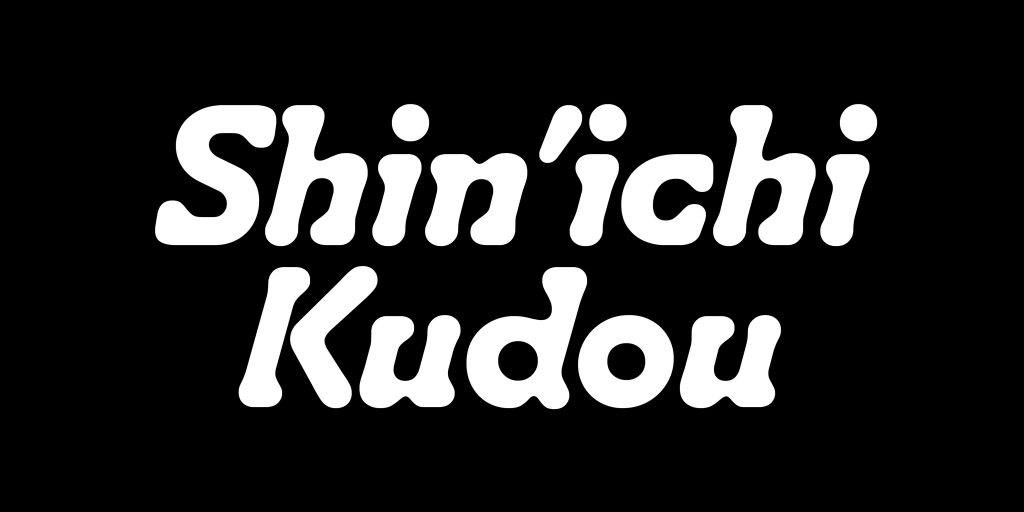
Name: Cosplay
Designer: Philipp Herrmann
Back Story: Philipp Herrmann studied at the University of Applied Arts in Zurich from 2002–2007—“but I only came in contact with type design during a three-month internship at Dalton Maag in London,” he says. Thereafter, Herrmann took the self-taught route, and he completed his first typeface, the slab serif Piek, in 2007 for Optimo. His first self-released effort, Crack—“based on a painfully restricted design concept,” which taught him a fair amount about shape, structure, and the nuances of a rigid circular grid—arrived in 2011, and was notably followed by Quick Marker and Copy. Then, in early 2021, he began work on Cosplay, a typeface that, despite Herrmann’s 15 years in the trade, came with all-new challenges of its own—largely due to the fact that it was “one of the few designs which evolved purely in my head,” emerging as a loose idea with original shapes not related to any historical forms.
According to Herrmann, the focus on form without context was akin to designing in a vacuum. “I realized that solely organic shapes would be too one-dimensional, too illustrated. I needed something that would generate some tension.” He wanted a design in which “organic and gridded, fluid and systematic” worked harmoniously. So he looked beyond the type world, and found inspiration in Hans Arp’s art, as well as camouflage and its “fluid organic language of form.” Arp’s ability to intertwine positive and negative space proved that abstract and figurative could indeed coexist. Thus, in Cosplay’s specimen, Herrmann pays tribute to Arp on page two, with Collage Sur Papier (1957)—two separate forms, the first a large positive shape and the second embodying a form and counterform, light on the outside, with a darker center. Stare at the daubs long enough, and you begin to see letterforms, the second one feeling like an ‘o.’ It was the tension Herrmann needed.
“I was trying to create very loose letter shapes inspired by Arp’s paintings,” he says. “Later, the shapes became more systematic, but I tried to preserve the fluidity within the drawing.” He adopted a grid-based approach to analyze positive and negative shapes, see relationships, and create visual ambiguity. The end result: order with flow.
Why’s it called Cosplay? “I like the broad associations evoked by the word,” says Herrmann. Costumed play, aka cosplay—the art of transforming your appearance into a character or characters—does not literally come across in the typeface, but it’s at the heart of its conceptual underpinnings. Formally, Cosplay is all about drama and transitions when you consider its grid-based, Arp-like organic shapes, and diffused strokes (more on that below).
What are its distinguishing characteristics? Herrmann created Cosplay’s organic look by paying attention to the “bleedy-ink accidents” at smaller type sizes. It looks and feels like a typeface whose ink has spread, moving into the paper’s fabric—“blobby,” for lack of a better word, but also controlled. Cosplay’s superpower? Its variable font abilities to render swashes at short, medium, or long intervals, or fuse with another letter (super swashes, if you will). Expanding one stroke and interrupting another letter, you’ve got the opportunity to create unique, never-before-seen ligatures.
What should I use it for, and how? You would think a typeface with these idiosyncrasies—blobby, but in a good way—would not be well-suited for lengthy settings, paragraphs, or running pages of text. But Cosplay gets the job done, and thanks to its even, dark, and punchy vibe on the page, it looks good and feels right for paragraphs when set large enough. Set it much larger for your deck in print or online. Go really big for displays and titles, a muscular appearance that demands the reader’s attention.
What other fonts should I pair it with? Try TypeTogether’s Adelle Mono Flex for a mechanical design text aesthetic, paired with Cosplay’s globulous headings and subheads. Or, go for geometric and low-poly with punchy headlines by partnering it with Emigre’s Crackly. Last but not least, try Cosplay’s dominating shapes with the playful Garlic Salt or the delicate and sophisticated Filosofia (or, mix all three in your layout for all the feels). No matter the combo, no matter the situation you put it in, Cosplay’s super swashes and hulking strokes can help create an utterly distinct design.